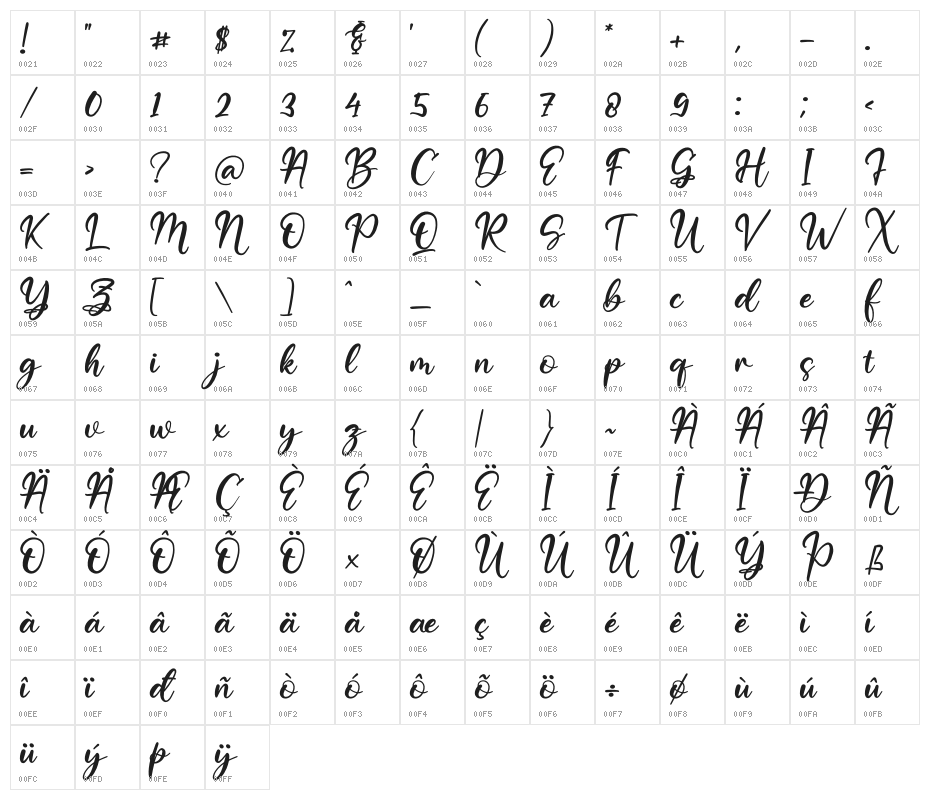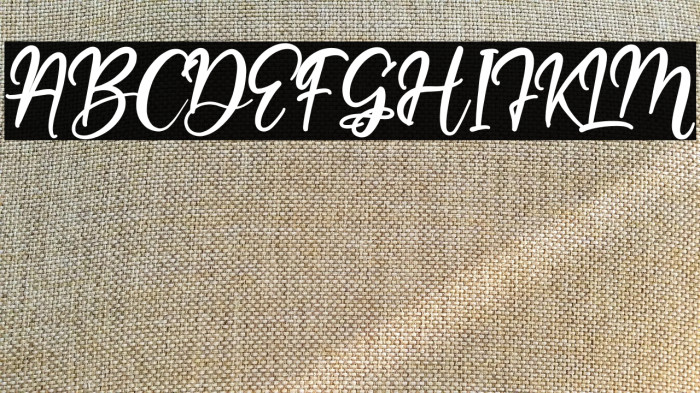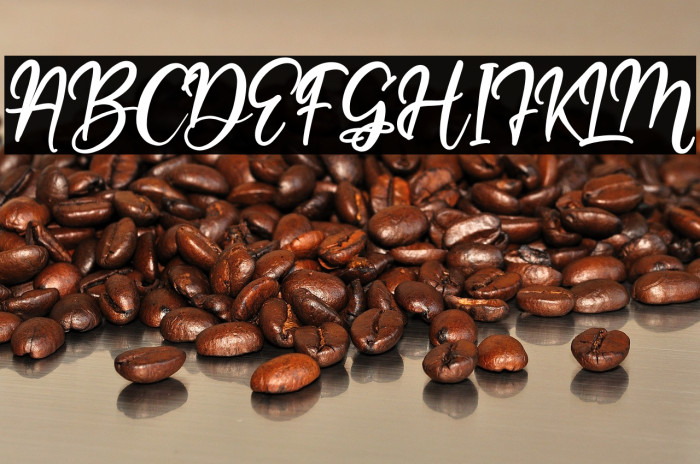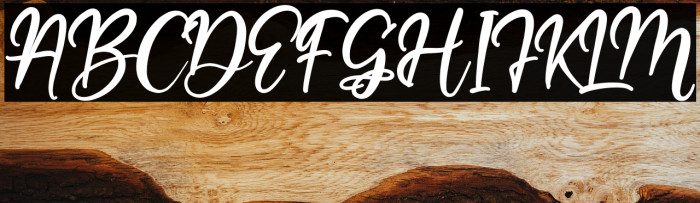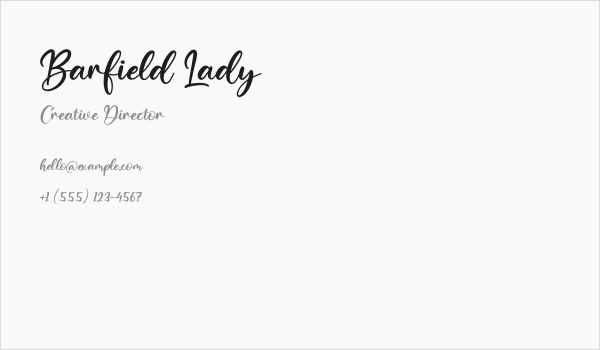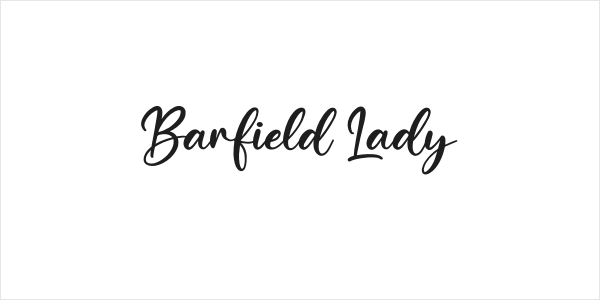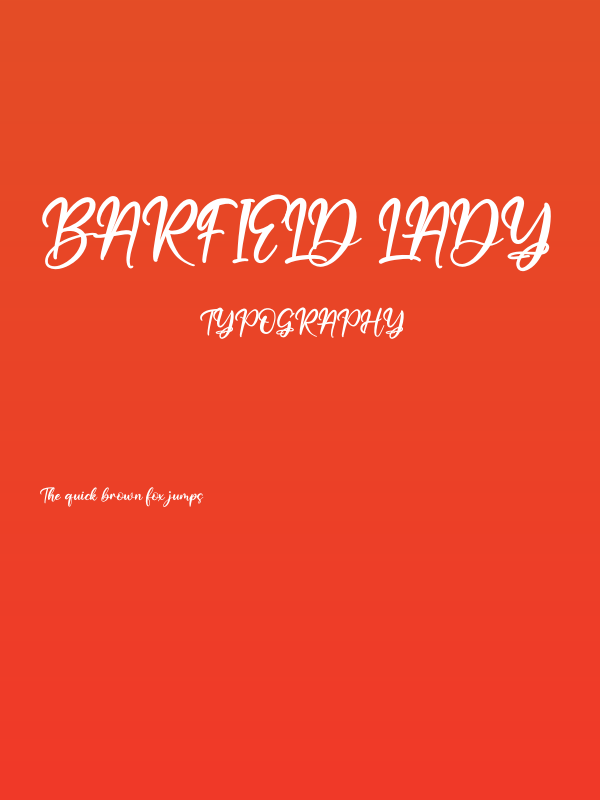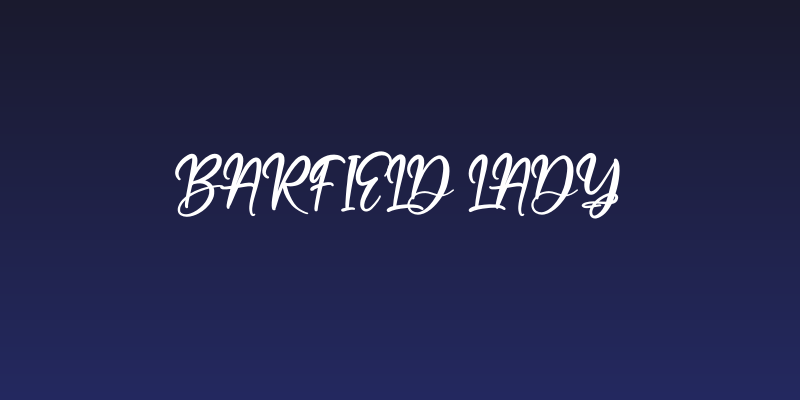
Barfield Lady Font
Barfield Lady Description
This font exhibits a flowing, cursive style with a handwritten aesthetic. The uppercase letters are elegantly looped and connected, giving a sense of fluidity and movement. The lowercase letters maintain a consistent style, with some characters featuring unique flourishes that enhance the overall decorative appearance. The numerals are styled to match the cursive theme, ensuring a cohesive look across all characters. Special characters are thoughtfully designed to complement the alphabet, making this font versatile for various uses. The overall impression is one of sophistication and elegance, suitable for projects that require a personal touch.
| Use Case | Logos, Invitations, Decorative Text |
| Proposed Projects | Ideal for wedding invitations, greeting cards, personal branding, and decorative signage. |